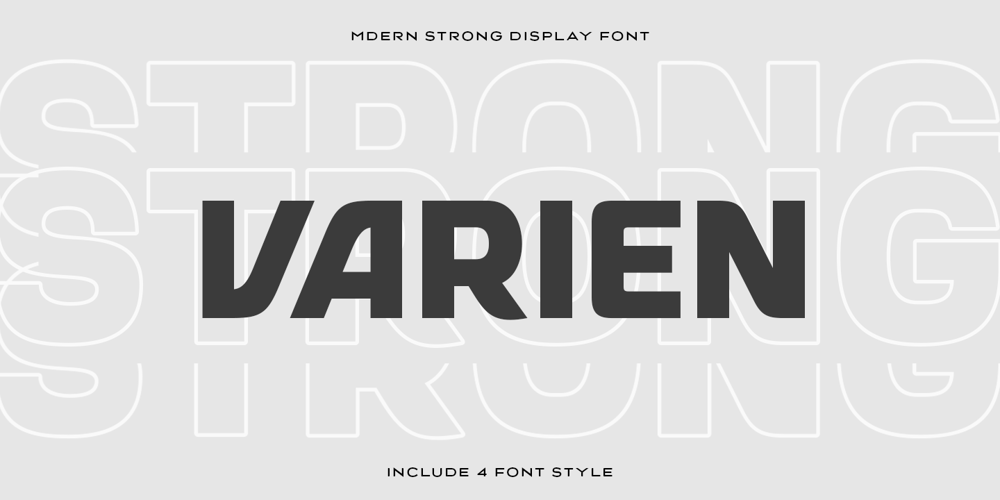
Varien SS Font Family was designed by Zamroni Hamzah and published by Sensatype Studio. Varien SS contains 4 styles and family package options. A Modern Strong Display Font that perfect for technology, sport, racing, action design project.A new Display Font that we created special for Headline, Title and more stand out typography needs, with extra outline that will add your variations. It’s so perfect to add your style and headline overview. And specially for Headline font, we crafted for futuristic style and modern feels so enjoy to create any project that will show your main idea out.Varien Modern Strong Display Font ready with:Any options to get creative variations (combination of Outline Characters) Preview as a inspirations that you can do with Varien font Ready with All Uppercase characters Wish you enjoy our font. ๐